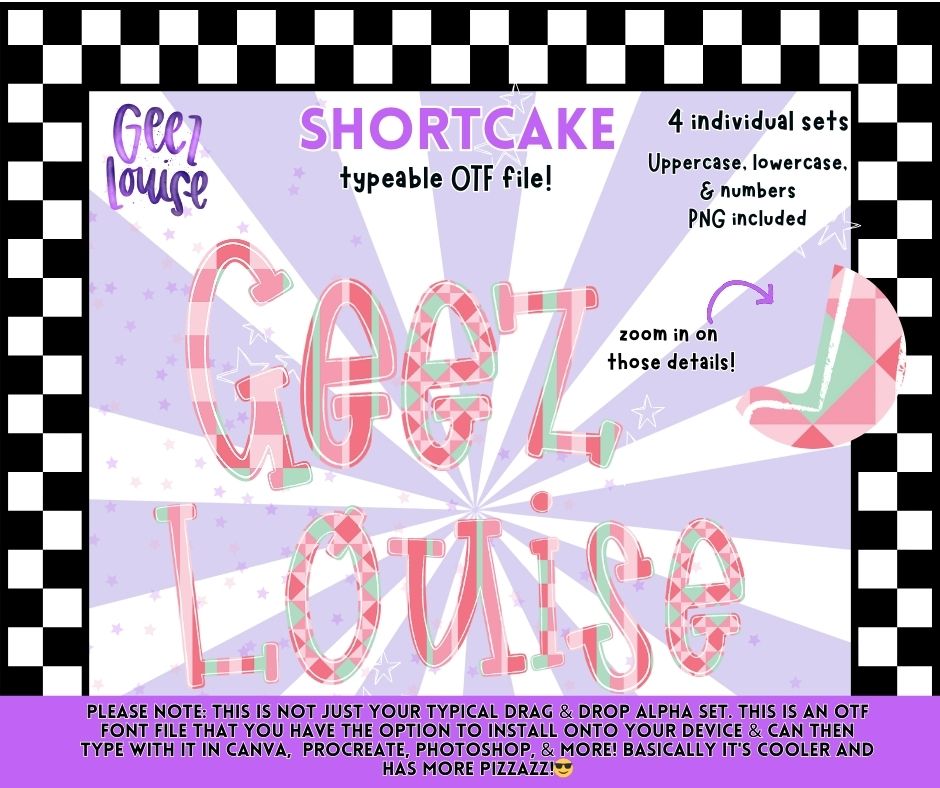
Shortcake Alpha is a playful, pattern-filled digital alpha designed for creators who want bold personality and flexibility.
The Shortcake Alpha features sweet, colorful detailing and comes in four individual alpha sets, giving you multiple style options within one download.
This alpha is ideal for adding charm and personality to your designs while keeping everything easy to use and fully editable.